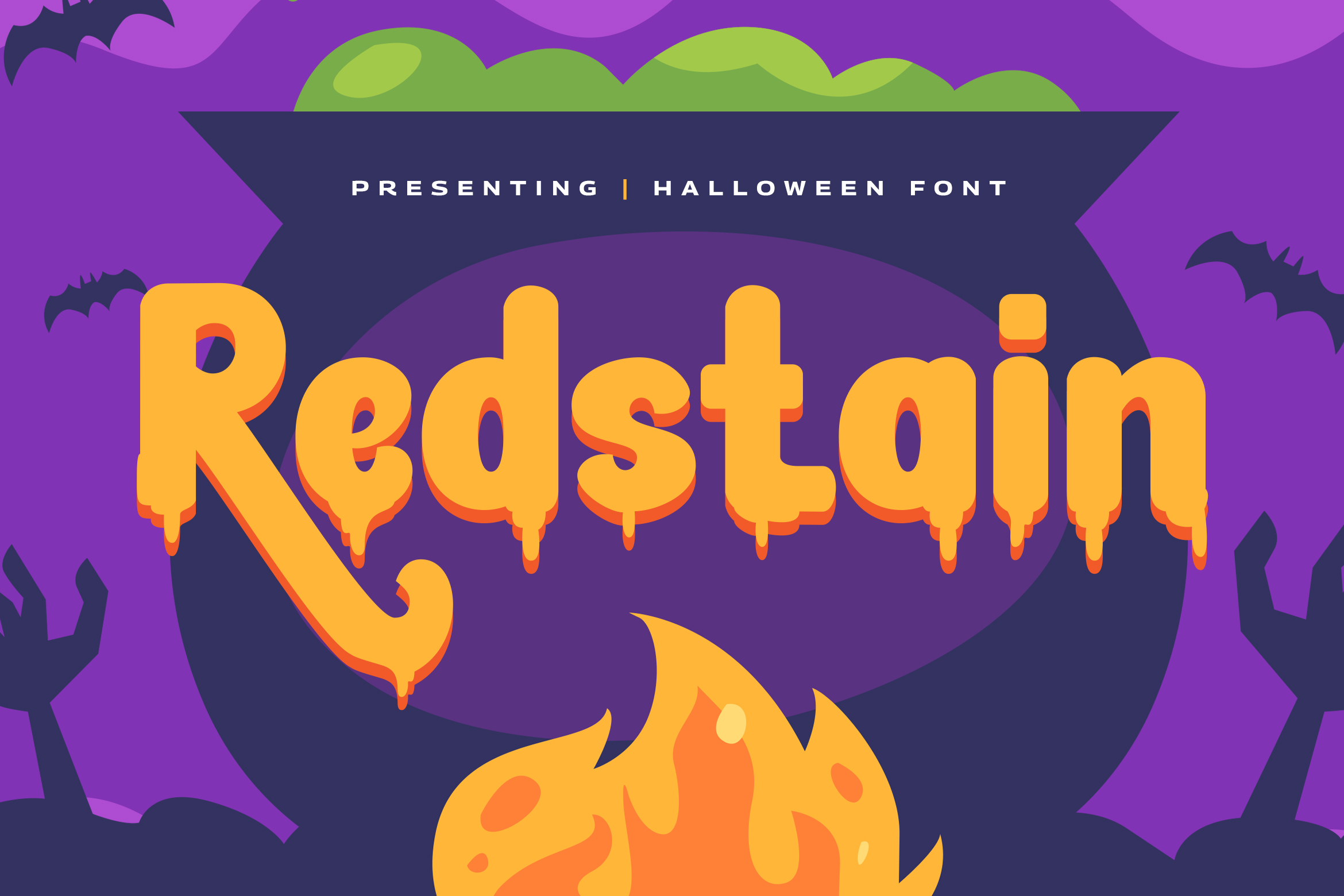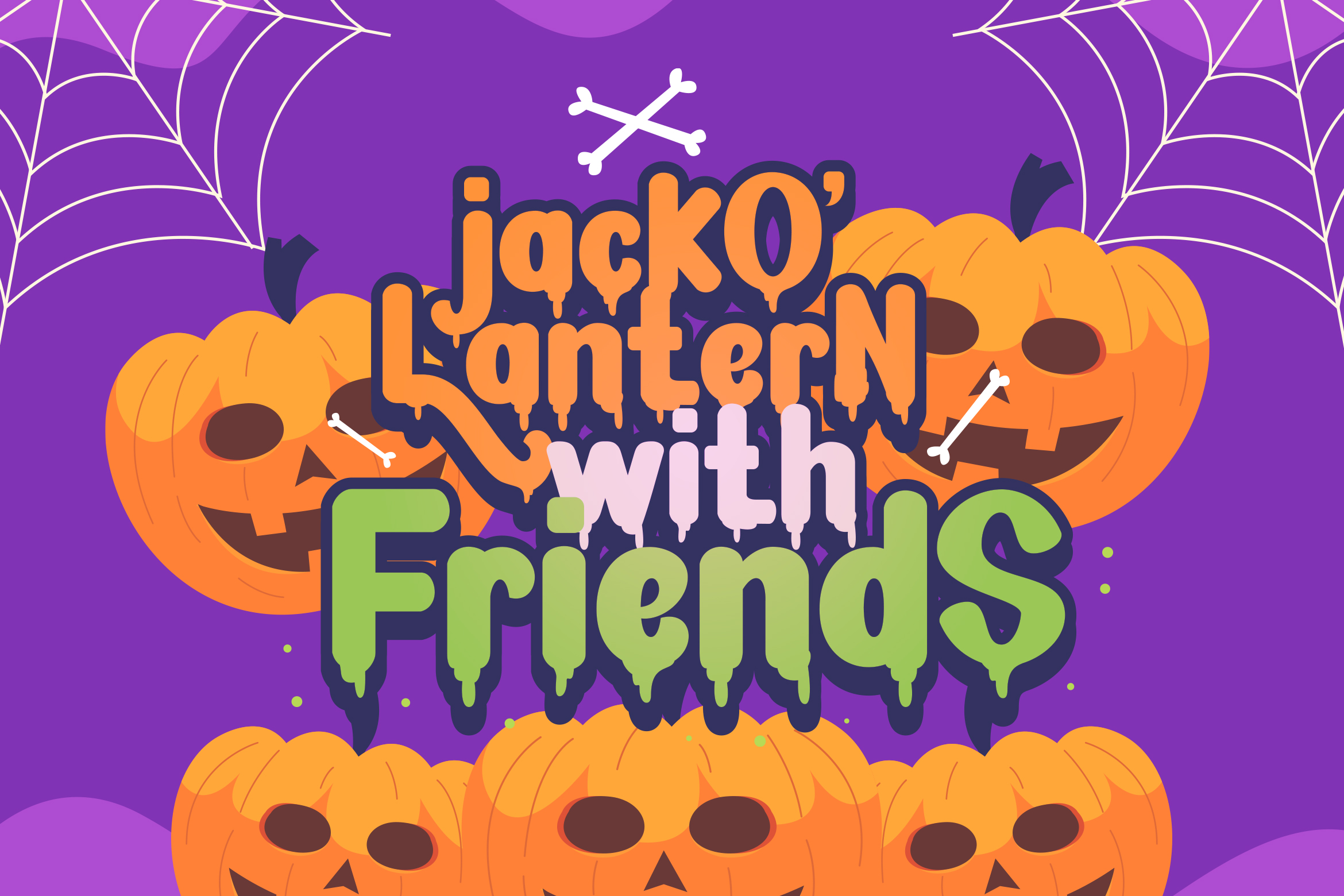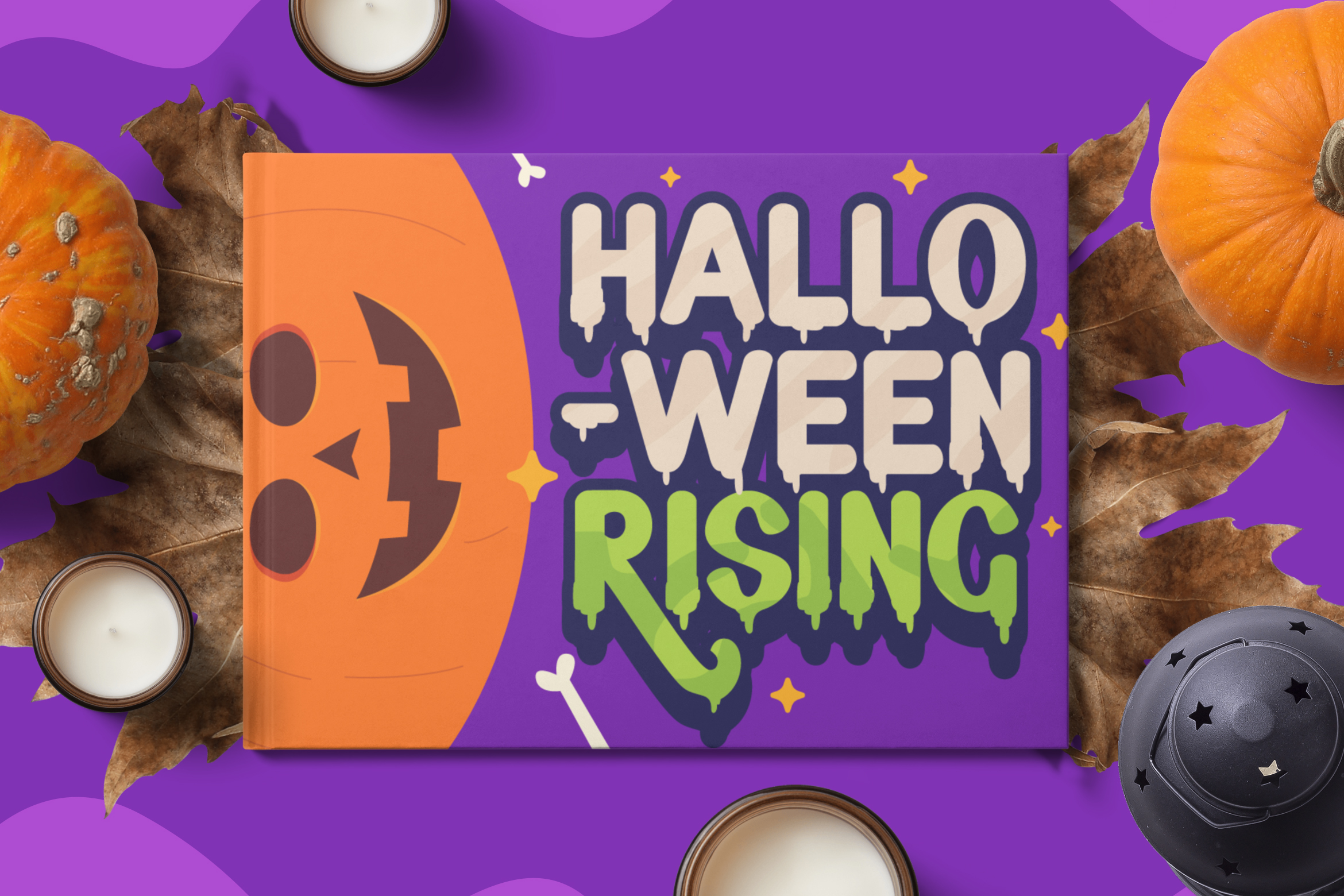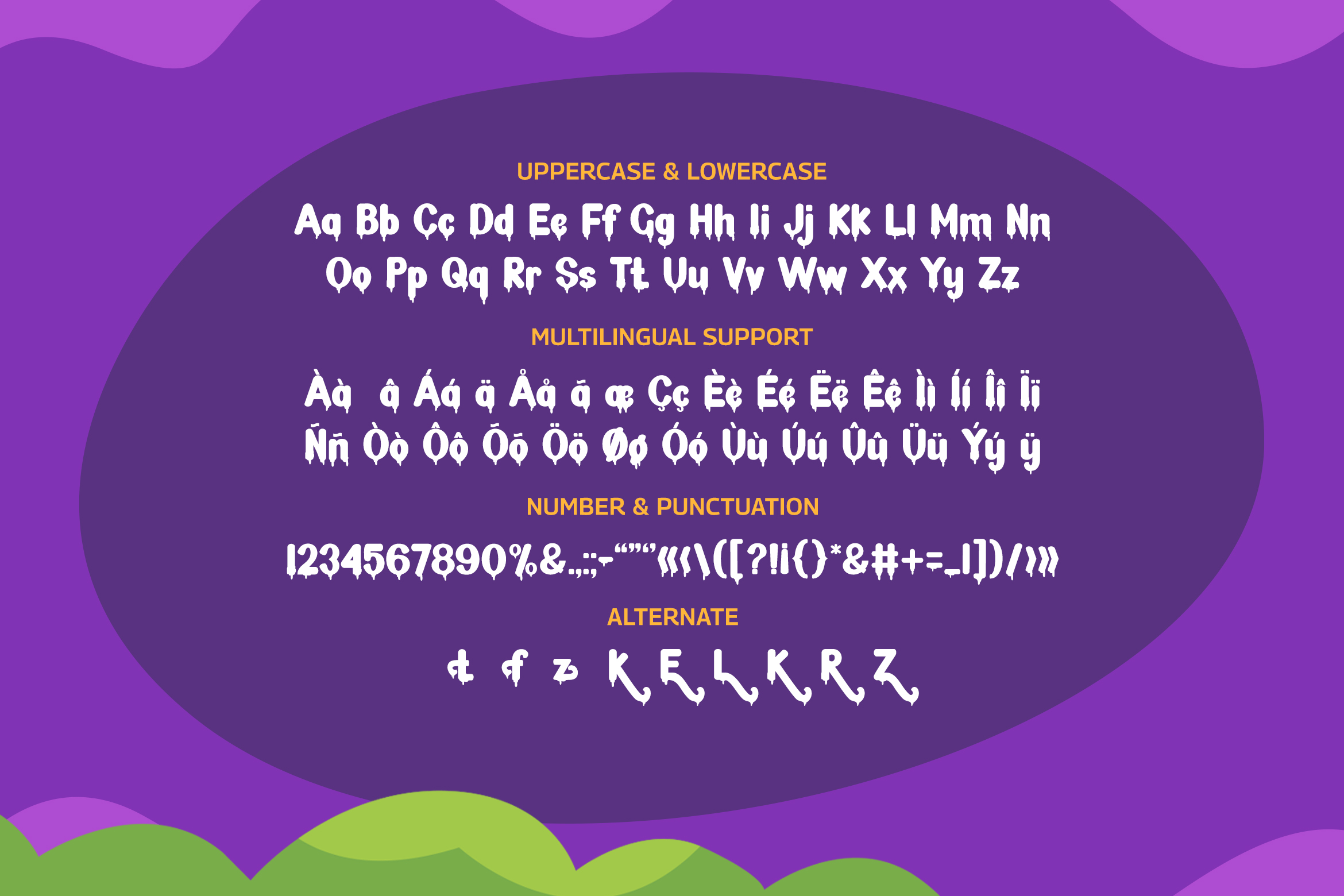
Redstain is a bold and drippy Halloween font designed to capture spooky fun with a playful twist. Its thick, rounded letterforms are paired with melting liquid effects, giving the impression of oozing slime or blood. Perfect for spooky titles, party posters, creepy product packaging, or Halloween-themed books. The friendly curves make it approachable for both kid and adult audiences alike.
Equipped with uppercase and lowercase characters, multilingual support, punctuation, numbers, and unique alternates, Redstain gives you full flexibility for creative Halloween compositions. Whether you’re brewing up eerie invitations or creepy-cute branding, this font is your go-to for ghostly fun.